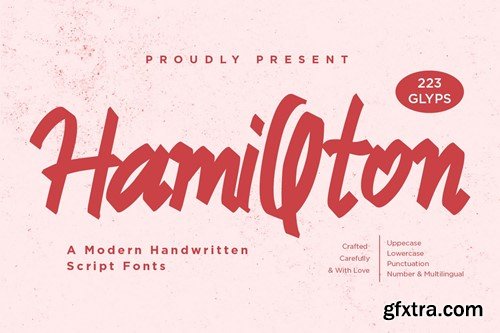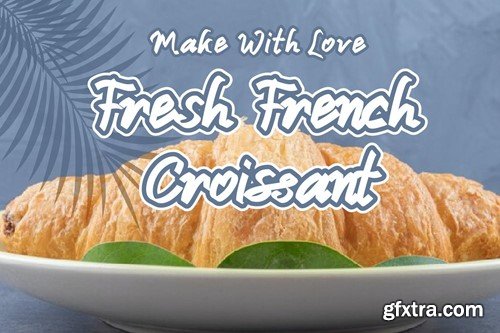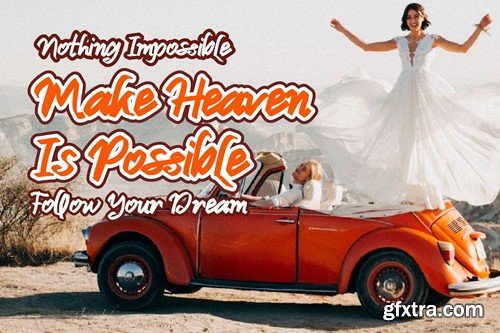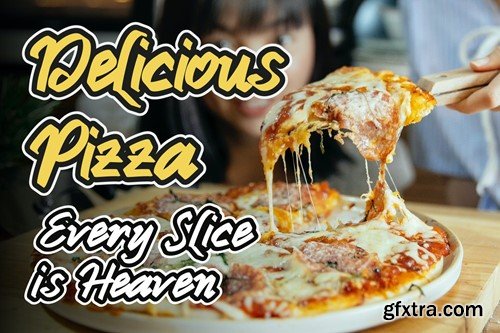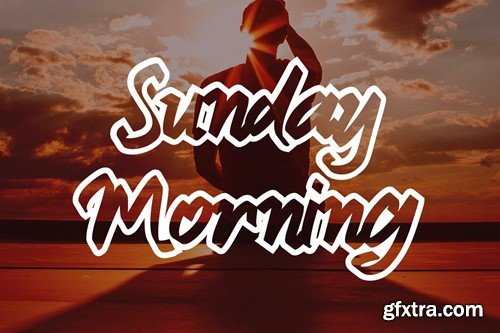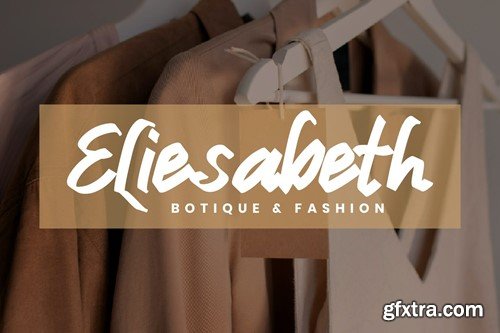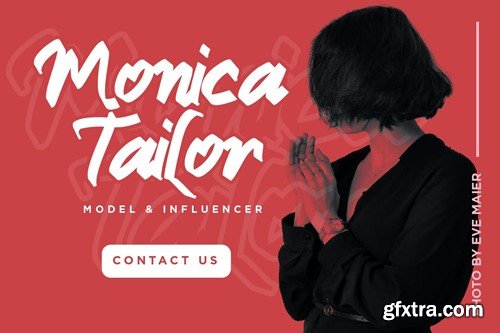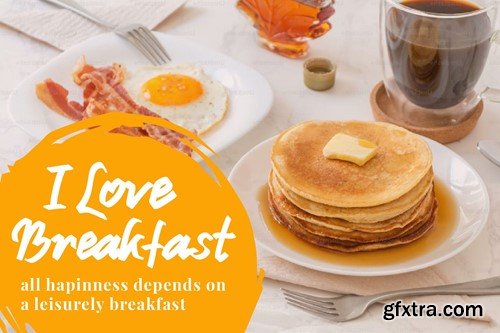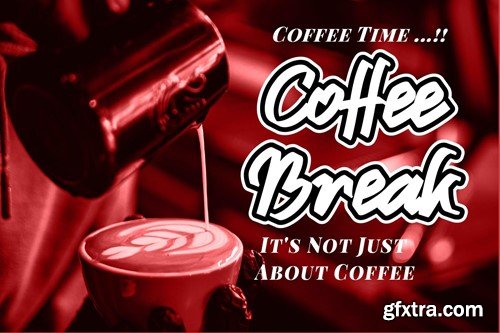
Hamilton - 手写剧本字体 7MG2J8A
Hamillton - Handwritten Script fonts 7MG2J8A
Hamillton - Handwritten Script fonts
Hamillton is a Handwritten Script font, will be suitable for any projects such as branding, promotional ads, quotes design, merchandise, social media and much more. make your work or your business to high level!!! special events, and all your other lovely projects that need beautiful handwriting taste.